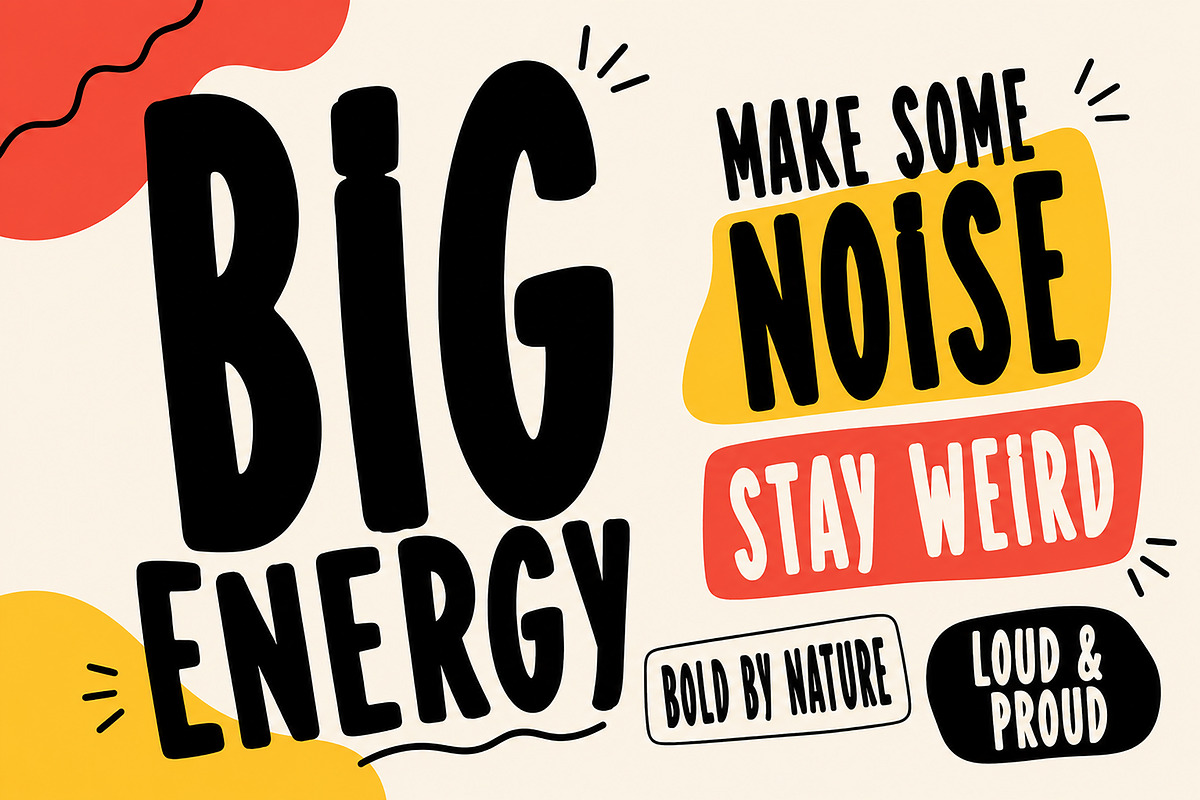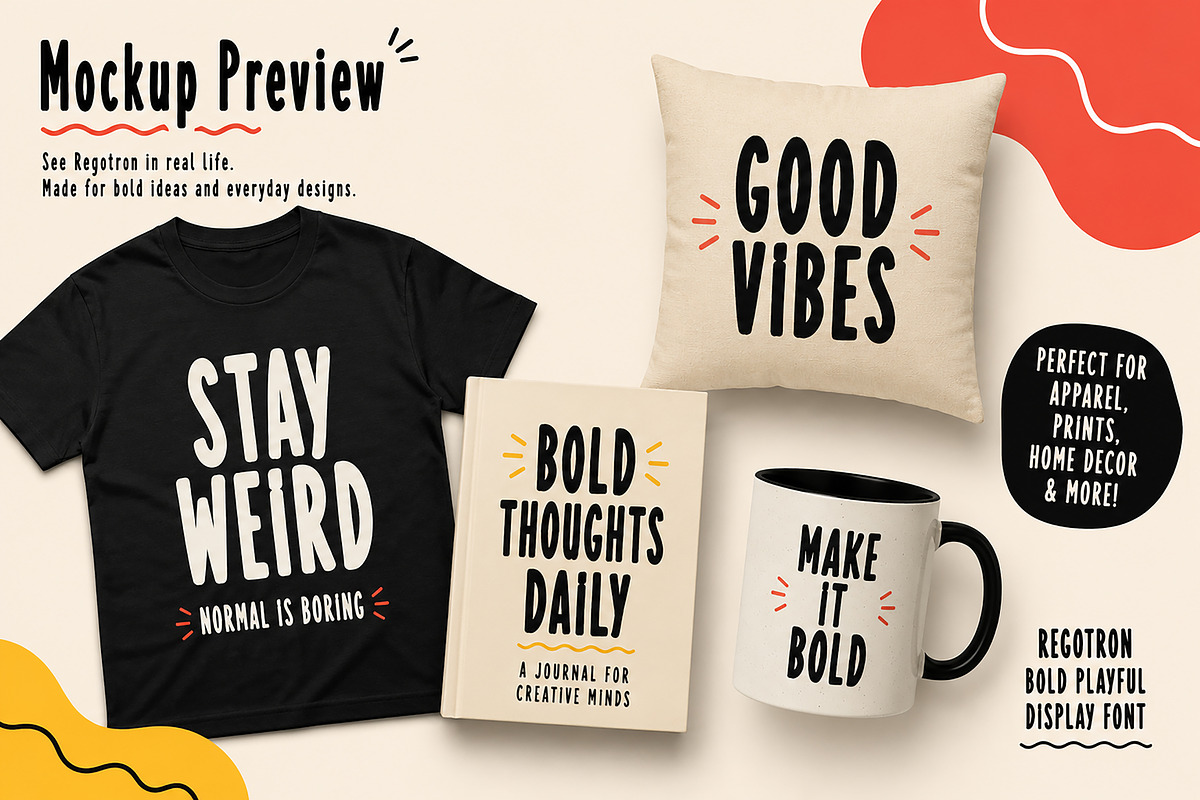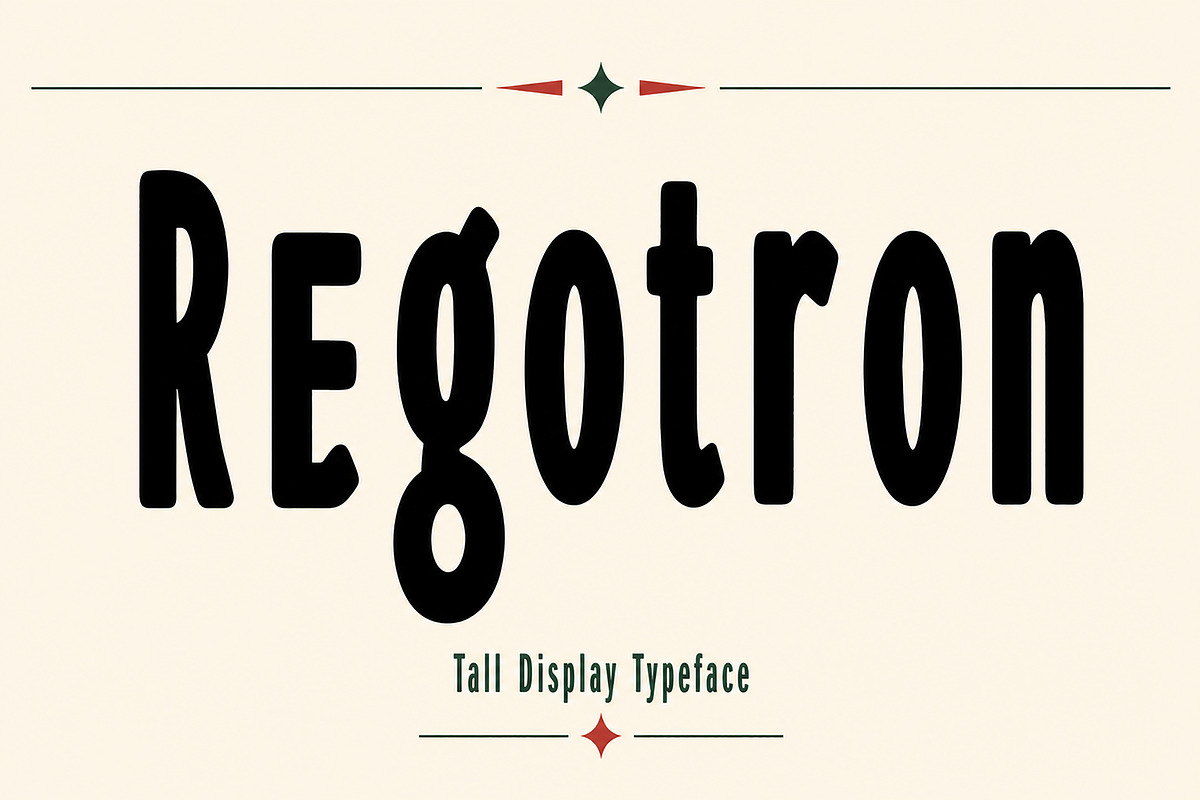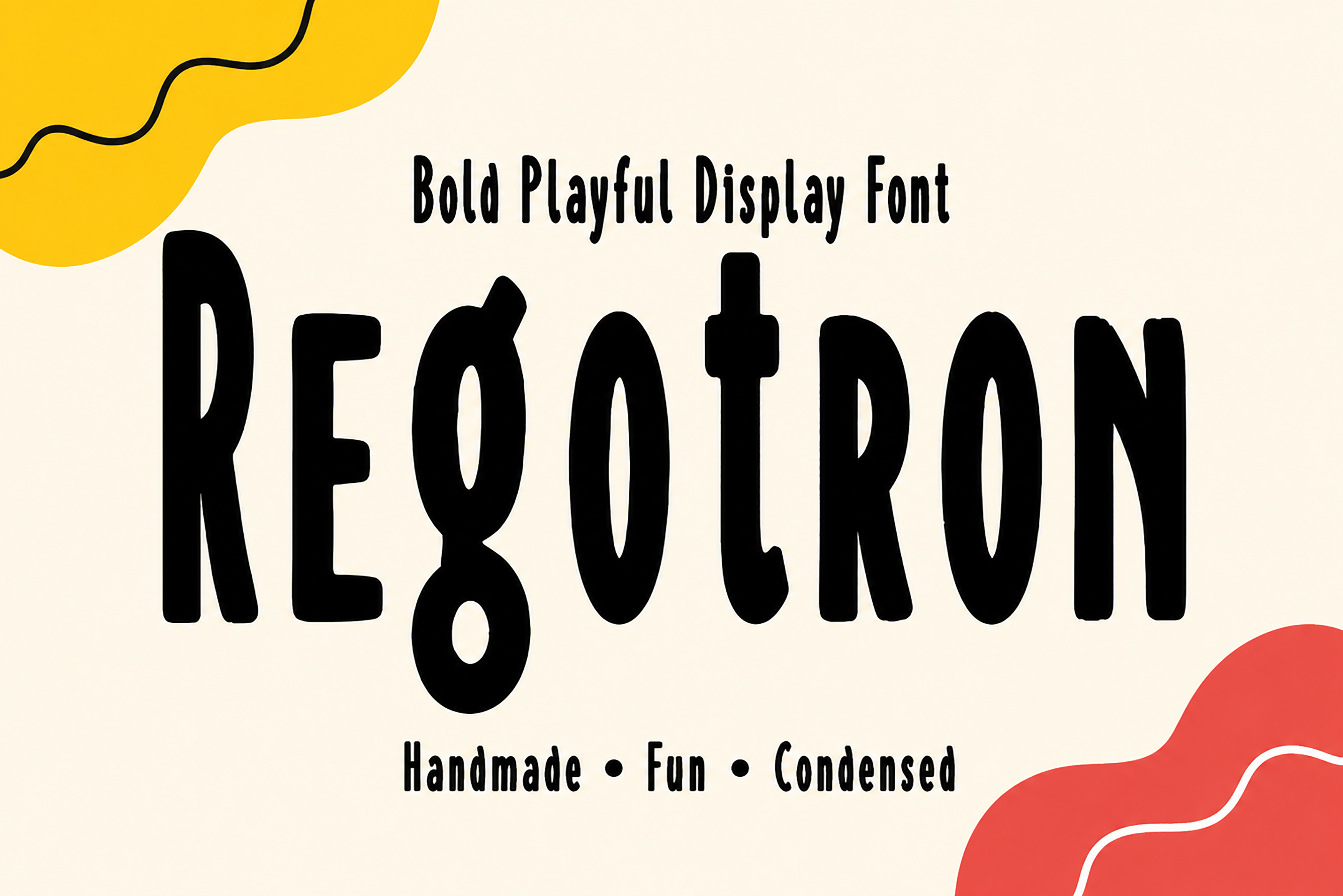
Regotron – Tall Display Typeface
Regotron is a bold, tall display typeface designed to make a powerful visual statement. Featuring condensed proportions, smooth curves, and a retro-inspired personality, this font is perfect for eye-catching headlines, branding, posters, logos, packaging, merchandise, and social media graphics.
Its clean yet playful character makes it suitable for both vintage-inspired and modern creative projects. Whether you're designing a bold logo, a stylish t-shirt, or a striking poster, Regotron delivers strong visual impact with excellent readability.
Uppercase & Lowercase Letters